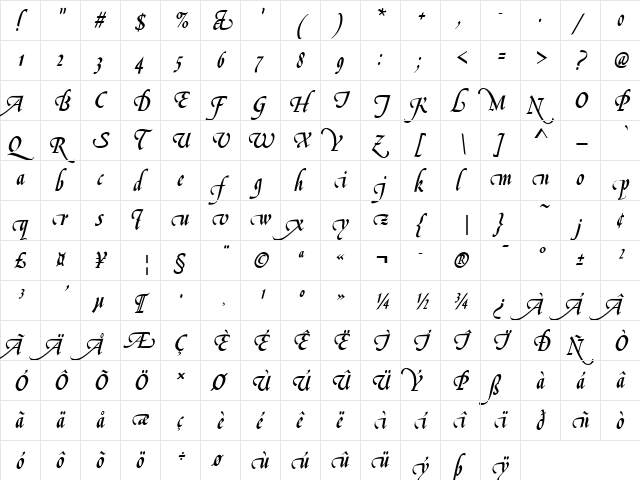
Le Griffe Swash Alternative D Regular
Design Context for Le Griffe Swash Alternative D Typeface
Le Griffe Swash Alternative D flows with the natural rhythm of handwritten lettering, making it ideal for designs that call for warmth and personal expression.
Font Pairing: Combine Le Griffe Swash Alternative D with a simple geometric sans for maximum contrast — the tension between flowing curves and clean structure is a classic typographic pairing.
Pro Tip: Pair Le Griffe Swash Alternative D with a clean sans-serif for supporting text. The contrast between fluid script and geometric structure creates an elegant typographic hierarchy.